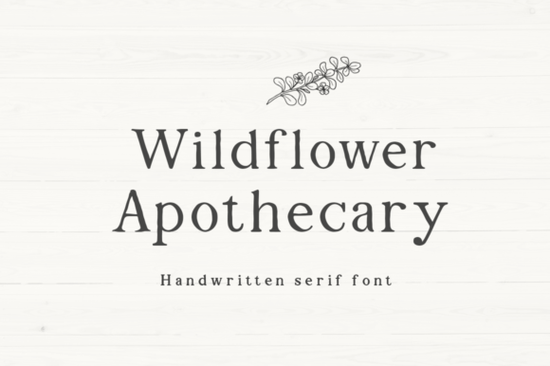
If you're looking for a warm, hand-crafted serif font that feels both timeless and personal, the Wildflower Apothecary Font fits naturally into projects where authenticity matters think farmhouse wall signs, wedding invitations, or small-batch product labels. It’s not overly ornate, but it carries subtle organic imperfections: slight variations in stroke weight, gentle ink bleed effects, and soft, rounded serifs that mimic real pen-on-paper writing. These details make it stand out from more polished script fonts while staying highly legible at medium to large sizes.
When does Wildflower Apothecary work best?
This font shines in contexts where handmade charm meets quiet elegance. Because it comes in two weights regular and bold you can layer them for contrast without switching families. That makes it especially useful for crafters using Cricut or Silhouette machines, print-on-demand sellers designing mugs or tote bags, and small businesses building cohesive brand assets like logos or packaging. Its relaxed rhythm works well for short quotes, shop names, or ingredient labels on artisanal goods anything where you want to signal care, tradition, or local roots.
How is it different from other handwritten serifs?
Unlike many “handwritten” fonts that rely on swashes or dramatic flourishes, Wildflower Apothecary keeps things grounded. There’s no forced drama just honest texture and thoughtful spacing. Compare it with Et Emilia Grace, which leans more romantic and delicate, or Bethany Elingston, which has stronger calligraphic structure. Wildflower Apothecary sits comfortably between them: friendly enough for greeting cards, sturdy enough for signage.
For designers who love vintage aesthetics but want something fresh, the Retro Fonts Collection offers bolder, mid-century options but if your mood is more dried lavender than neon diner, this one fits better. And while Magic Flash brings playful energy, Wildflower Apothecary gives you calm confidence instead.
Because it’s designed with cut files in mind, many users report clean, crisp results when cutting vinyl or engraving wood even at smaller sizes (16–24 pt), as long as line weight isn’t pushed too thin. If you’re making personalized coasters or herb jar labels, this font holds up well without needing manual tweaks.
Who uses it and why?
We’ve seen makers use Wildflower Apothecary Font for Etsy shop banners, seasonal market booth signage, and printable planner stickers. Small farms and apothecaries choose it for product tags because it quietly reinforces their values: slow, natural, human-made. Teachers use it for classroom posters. Wedding stationers pair it with linen textures and muted tones for save-the-dates that feel intimate, not generic.
It also pairs well with simple sans-serifs (like Montserrat or Lato) for body text giving you contrast without visual competition. Try setting headlines in the bold weight and subheads in regular, then switch to a neutral sans for paragraphs. This combo reads clearly on screen and in print, whether you're designing a digital menu or a foil-stamped invitation.
Things to keep in mind before downloading
- Not ideal for long paragraphs: Like most decorative serifs, readability drops below 14 pt or in dense blocks of text.
If you already have a few serif fonts in rotation but miss that soft, lived-in quality something that looks written by hand but still feels intentional Wildflower Apothecary Font is worth trying next. Start with a quote sign or a simple logo mockup. See how it feels beside your current go-tos. You might find it becomes your quiet favorite for projects where warmth matters more than wow.